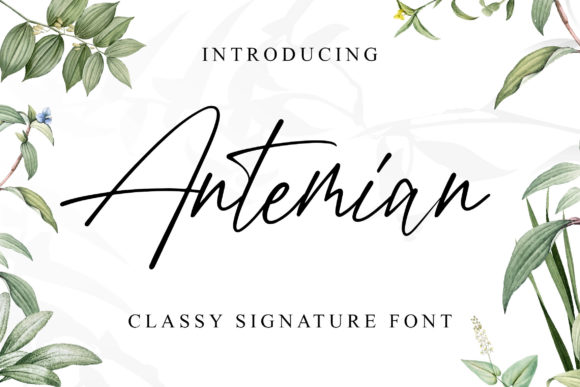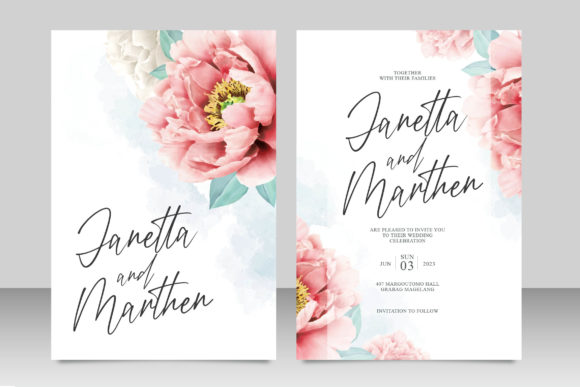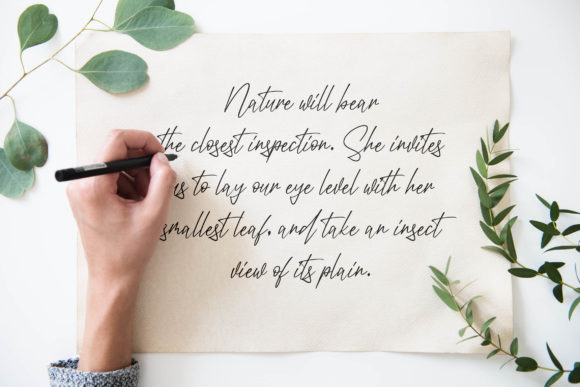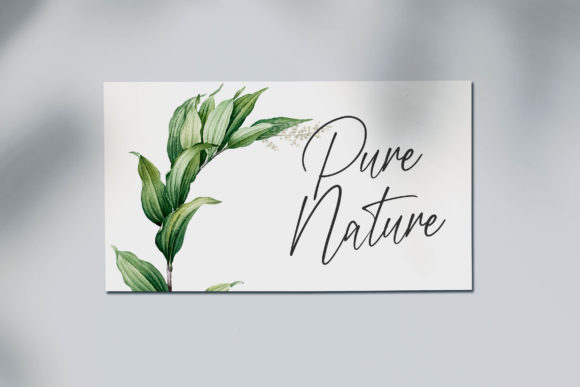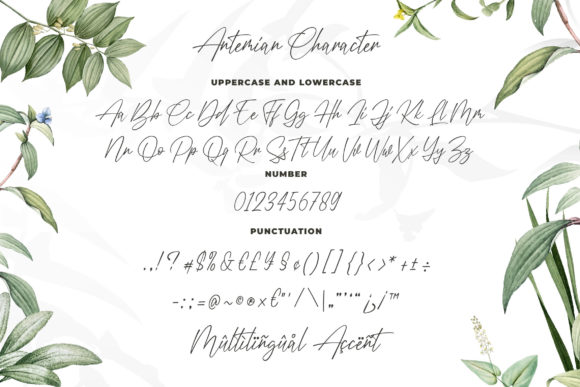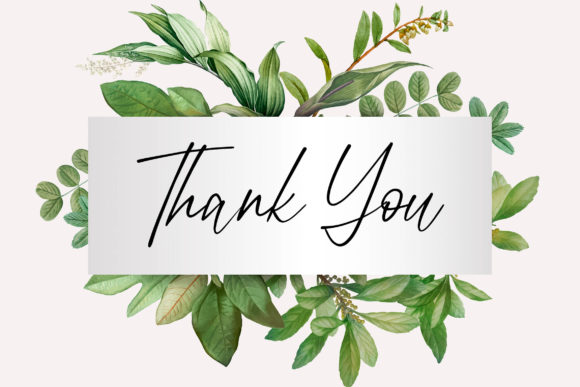
Antemian Font
About Antemian Font
Antemian feels fresh and authentic which makes it the perfect font for greeting cards, invitations or any project in need of that personal touch.